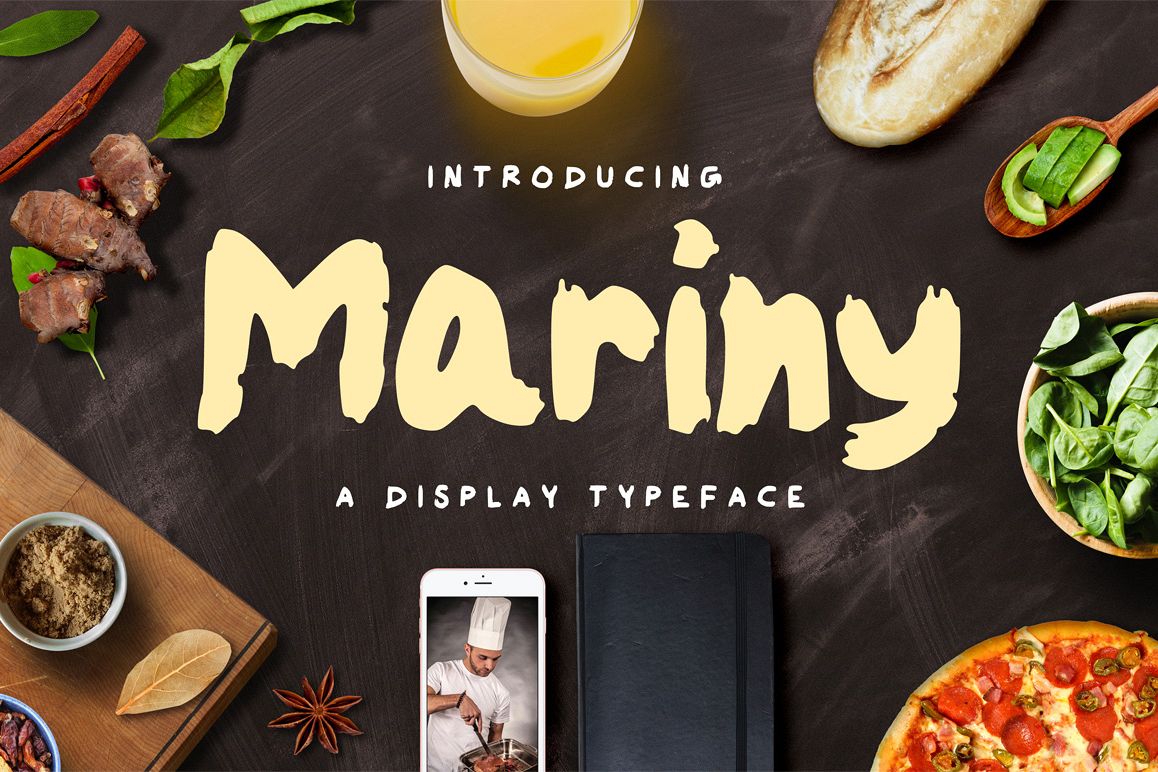
Mariny is a new & modern handmade font.
Mariny is perfectly suited to stationery, logos, t-shirt, paper, print design, website header, photo frame, flyer, music cover, poster, image slider and much more.
Features:- Uppercase
- Numerals